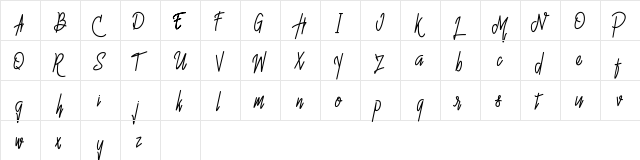
Hello Avelline-DEMO Regular
| Designer | Yugo Priyat Moko (Holydie Studio) |
Design Context for Hello Avelline-DEMO Typeface
Hello Avelline-DEMO is a composed and adaptable typeface that performs quietly and consistently across a wide range of design contexts.